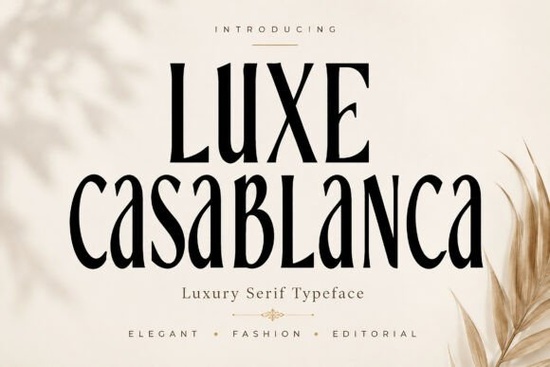
Luxe Casablanca Font is a stunning serif typeface that brings a touch of elegance and sophistication to any design project. Whether you're working on a luxury logo, fashion campaign, or wedding stationery, this font offers a refined look that feels both classic and modern. Its high-contrast letterforms and graceful curves make it ideal for editorial designs, boutique branding, and premium packaging.
Designed with the needs of professional designers in mind, Luxe Casablanca Font is perfect for those who want to add a sense of luxury and refinement to their work. The font’s unique character makes it stand out in a crowded market, helping your designs feel more exclusive and high-end. It's especially useful for projects that require a strong visual identity, such as magazine headlines, fashion magazines, or luxury brand identities.
If you're looking for a versatile serif font that can be used across different mediums, Luxe Casablanca Font is an excellent choice. Its clean lines and balanced structure make it easy to read while still maintaining a luxurious feel. This font works well in both digital and print formats, making it a valuable addition to any designer’s toolkit.
What Makes Luxe Casablanca Font Unique?
Luxe Casablanca Font stands out due to its combination of traditional craftsmanship and modern aesthetics. The font draws inspiration from luxury fashion and high-end editorial design, resulting in a typeface that feels both timeless and contemporary. Its detailed letterforms and elegant strokes give it a premium look that can elevate any design project.
One of the key features of Luxe Casablanca Font is its versatility. It can be used in a wide range of applications, from logos and branding materials to marketing campaigns and social media graphics. The font’s ability to maintain clarity at different sizes makes it suitable for both large headlines and smaller text elements.
Another advantage of this font is its ease of use. It comes with a variety of weights and styles, allowing designers to choose the perfect option for their specific needs. Whether you’re working on a bold headline or a subtle body text, Luxe Casablanca Font provides the flexibility needed to create visually appealing designs.
Who Can Benefit From Using Luxe Casablanca Font?
Designers, crafters, print-on-demand sellers, small businesses, and creative hobbyists can all benefit from using Luxe Casablanca Font. Its sophisticated style makes it ideal for those who want to add a touch of class to their work. For small businesses, this font can help create a more professional and polished brand image.
Crafters and print-on-demand sellers will find that Luxe Casablanca Font adds a premium feel to their products. Whether you're designing custom t-shirts, greeting cards, or stationery, this font can help your designs stand out. Its elegant appearance makes it a great choice for anyone looking to create high-quality, visually appealing content.
For creative hobbyists, Luxe Casablanca Font offers a way to experiment with typography and explore new design possibilities. Its unique character allows for creative expression while maintaining a level of professionalism that is essential in many design projects.
How to Use Luxe Casablanca Font Effectively
To get the most out of Luxe Casablanca Font, consider the following tips. First, use it for headings and titles where its elegance can shine. This will help draw attention and create a strong visual impact. For body text, pair it with a simpler font to maintain readability and balance.
When using Luxe Casablanca Font in digital projects, make sure to test it at different sizes to ensure it remains legible. In print, pay attention to how the font looks on different paper types and under various lighting conditions. These considerations can help you achieve the best results with this font.
Finally, don’t be afraid to experiment with different color combinations and layouts. Luxe Casablanca Font works well with a variety of design styles, so feel free to explore and find what works best for your project.
Before finalizing your design, take a moment to review how Luxe Casablanca Font looks in different contexts. Make sure it aligns with your overall design goals and enhances the message you're trying to convey. With the right approach, this font can become a valuable asset in your creative workflow.